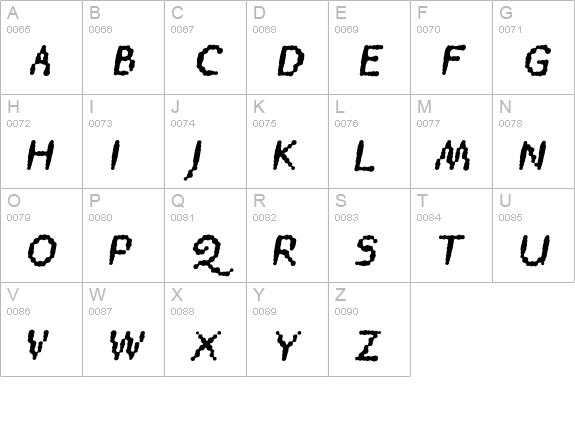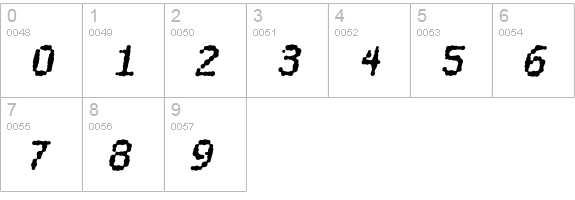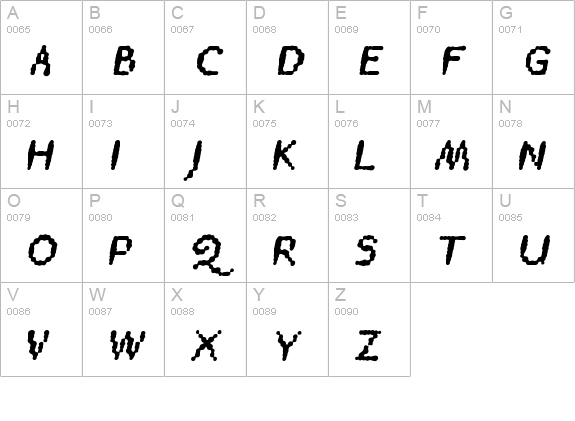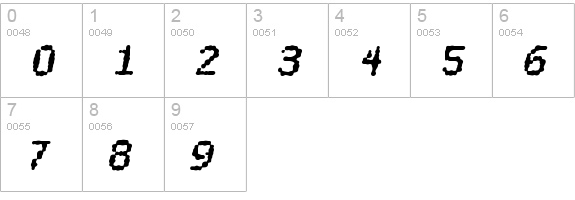
Introducing the exquisite TTRheostatFahrenheit-BoldItalic font, a captivating design that effortlessly blends elegance with a touch of modernity. This font exudes confidence and sophistication, making it the perfect choice for those seeking to make a bold statement. With its sleek and stylish curves, TTRheostatFahrenheit-BoldItalic adds a touch of finesse to any project or design. Whether you're creating eye-catching logos, stunning headlines, or captivating advertisements, this font is sure to leave a lasting impression. What makes TTRheostatFahrenheit-BoldItalic even more appealing is the fact that it is freely available to download at FontsMarket.com. Yes, you read that right! This exceptional font can be yours at absolutely no cost, allowing you to unleash your creativity without any limitations. Unleash the power of TTRheostatFahrenheit-BoldItalic and elevate your designs to new heights. Its bold and italicized characters offer a sense of drama and flair, instantly capturing attention and leaving a lasting impact on your audience. Whether you're a professional designer, a passionate artist, or just someone looking to add a touch of sophistication to their personal projects, TTRheostatFahrenheit-BoldItalic is the perfect choice. Its versatility and timeless appeal ensure that it will remain a staple in your font library for years to come. So why wait? Download TTRheostatFahrenheit-BoldItalic today from FontsMarket.com and experience the freedom to create stunning designs that truly stand out. Unleash your creativity and let this font take your projects to new levels of excellence.